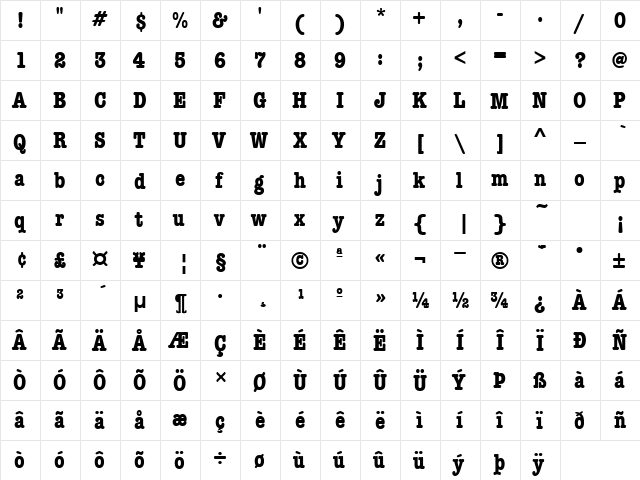
TypewriterCondensed Bold Font Preview
TypewriterCondensed Bold
Design Context for TypewriterCondensed Typeface
TypewriterCondensed brings the precise, column-aligned rhythm of monospaced typography to designs that value technical clarity and systematic order. The heavy weight commands attention and anchors typographic hierarchies.